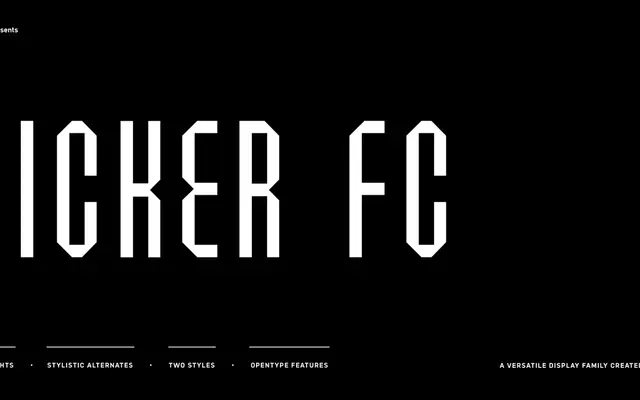
Kicker FC
A narrow display family built for sports branding, offered in eight weights with matching shadow variants and stylistic alternates for each.
Built for sports-facing work across college, soccer, basketball and beyond, the family runs from Extra Light to Black with a full parallel set of shadow styles adding a graphic dimension to each weight. Stylistic alternates across two sets allow lettering-style variation on key characters including B, E, K, R and T. The narrow proportions make it well suited to headline and poster work where tight column widths demand impact without sacrifice of legibility.
A narrow, multi-weight display typeface designed explicitly for sports branding and headline use, with shadow variants and stylistic alternates that place it firmly in the display category rather than a neutral sans-serif.